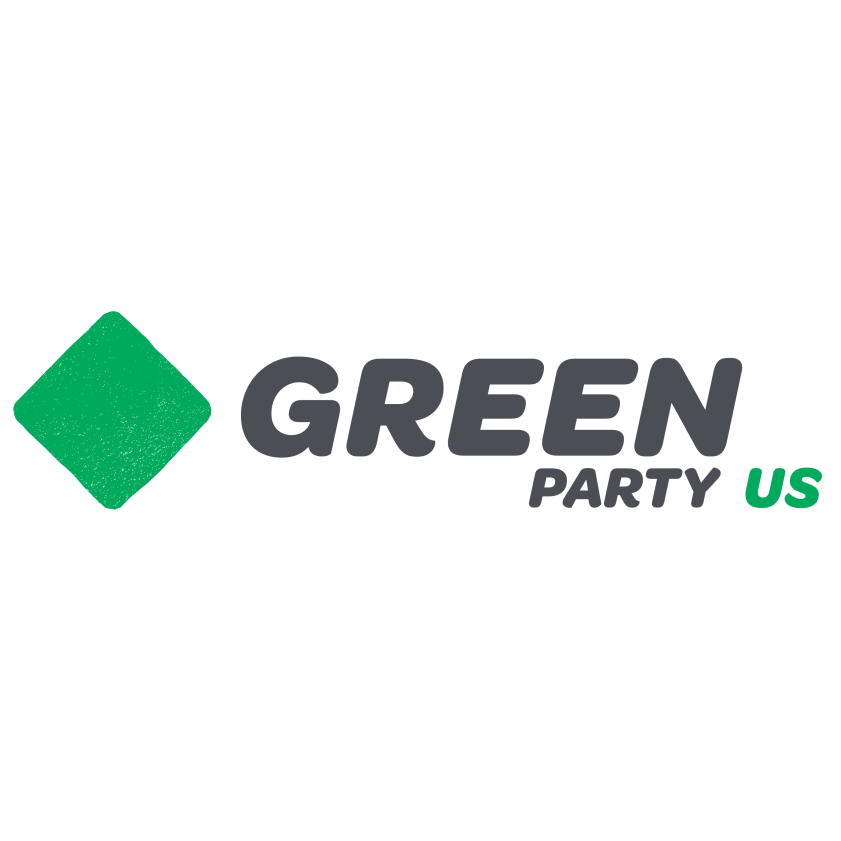
Green Party Font
Fonts in UseThe Green Party of the United States (GPUS) is a political party that advocates for environmentalism, social justice, grassroots democracy, and nonviolence. It was founded in 1984 and has fielded candidates for various political offices across the United States.
GPUS's present logo features the Omnes Bold Italic font, a rounded sans serif created by Joshua Darden in 2016 with nine weights, and later improved with more widths and Cyrillic and Arabic support in 2018 and 2019.